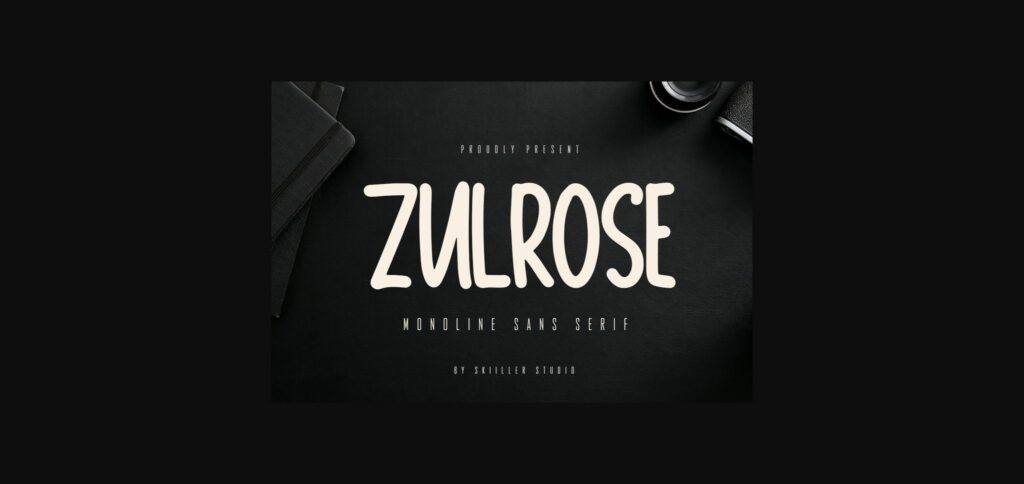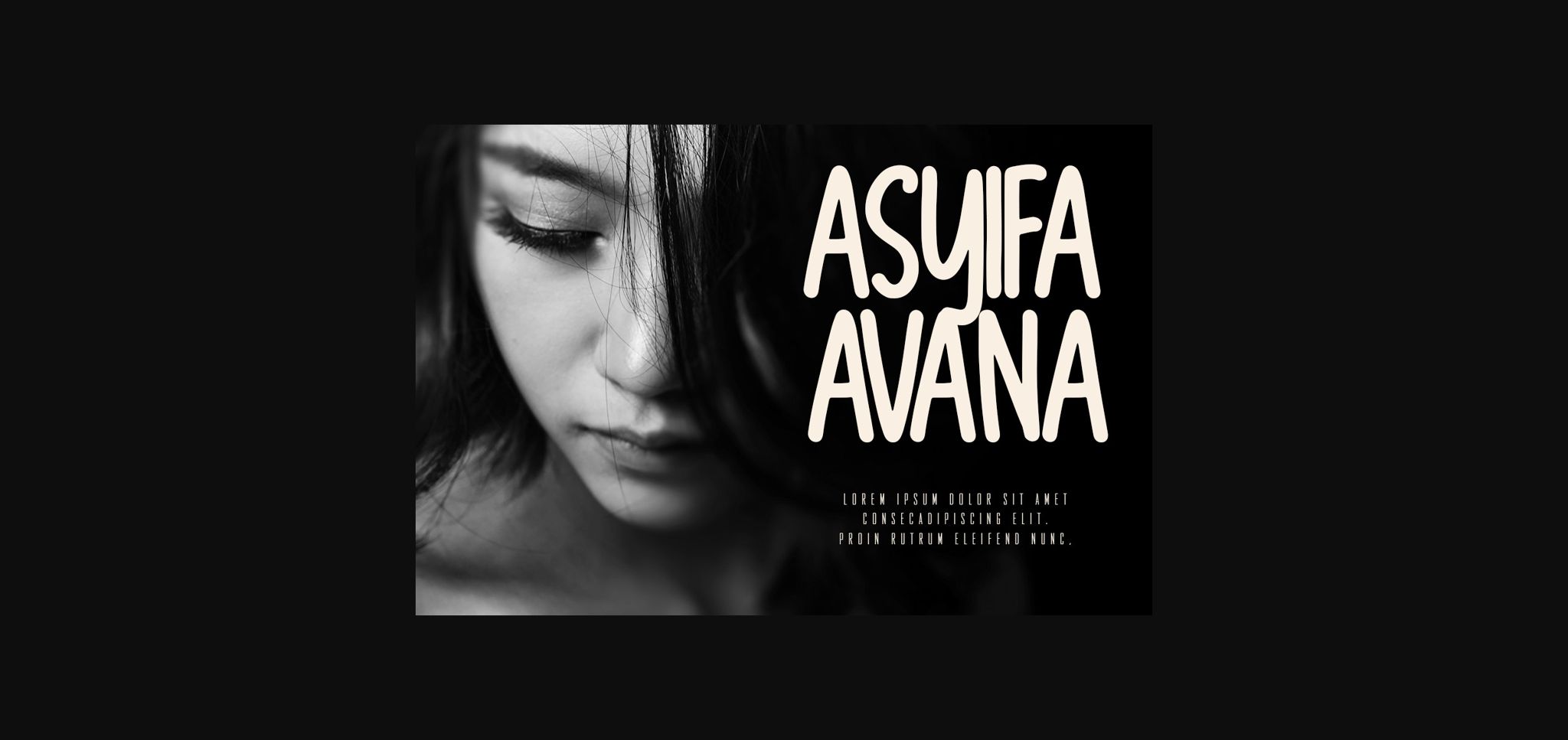
About Zulrose Font
Zulrose is a monoline sans serif font, crafted to give your headlines and logotype projects a stylish touch. This font reads as strong, confident, and dynamic and can add tons of character to your designs.